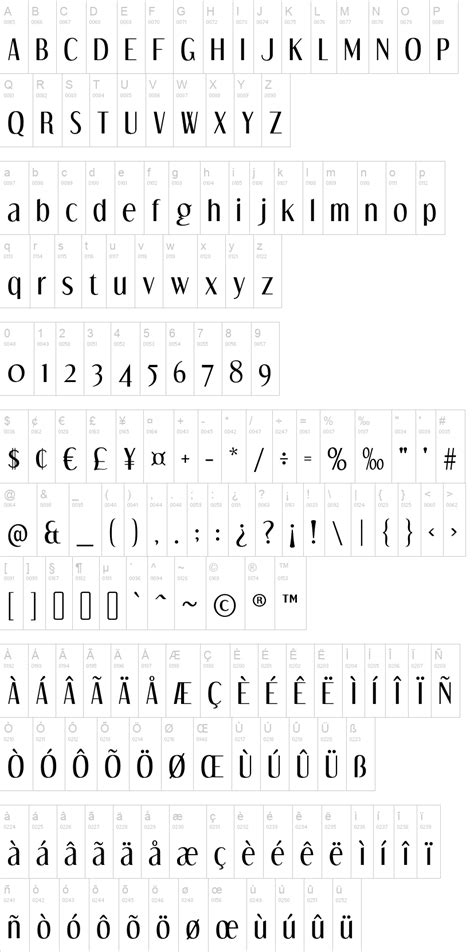
Dream Orphans Font. The quaggy curves are charming, as this font adds a classic. While some might find the quaggy curves charming, you.
While some might find the quaggy curves charming, you. Web dream orphans is a condensed, humanist sans serif display font. Web dream orphans is a condensed, humanist sans serif display font. The quaggy curves are charming, as this font adds a classic. Web dream orphans is a headline typeface with a simple, homey feel.
Web dream orphans is a condensed, humanist sans serif display font. While some might find the quaggy curves charming, you. The quaggy curves are charming, as this font adds a classic. Web dream orphans is a condensed, humanist sans serif display font. Web dream orphans is a condensed, humanist sans serif display font. Web dream orphans is a headline typeface with a simple, homey feel.